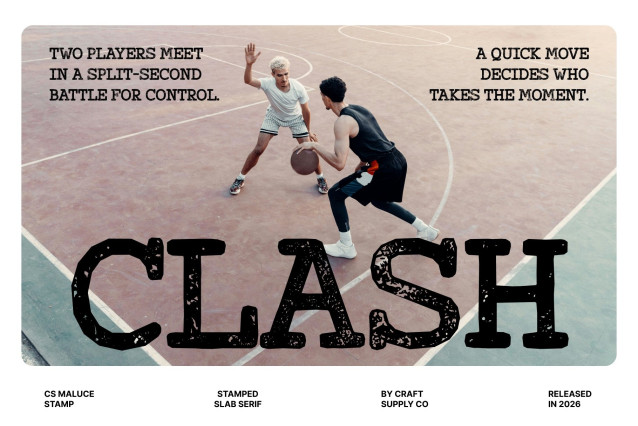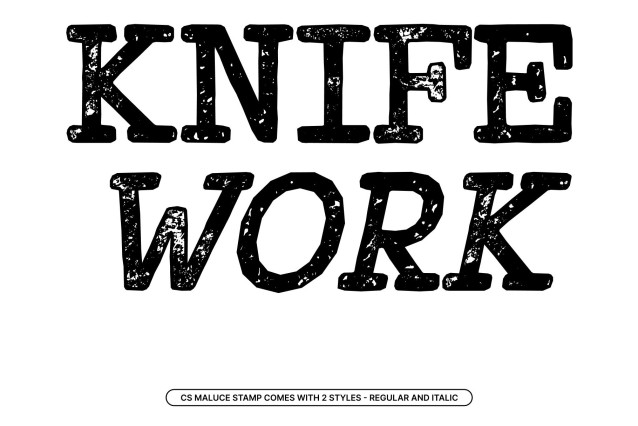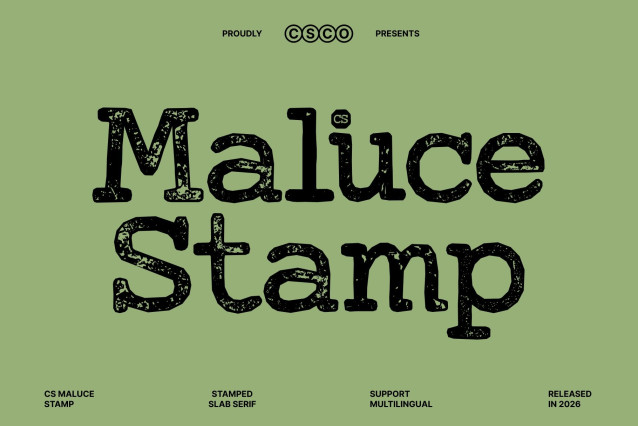
CS Maluce Stamp Font
CS Maluce Stamp – Slab Serif Font: Where Strength Meets Vintage Impact
Bold Structure with Assertive Character
This is a slab serif font designed to deliver a bold, strong, and commanding visual presence. Its sturdy letterforms and thick serifs create a solid foundation that immediately captures attention. Built for impact, this font making it ideal for designs that need to stand out with clarity and force.
Textured Stamp Effect with Vintage Appeal
This font introduces a rugged texture that brings a vintage and tactile quality to every letter. The slightly distressed finish evokes the feel of traditional print techniques. This textured detail enriches the design, making it perfect for projects that seek a balance between modern strength and nostalgic charm.